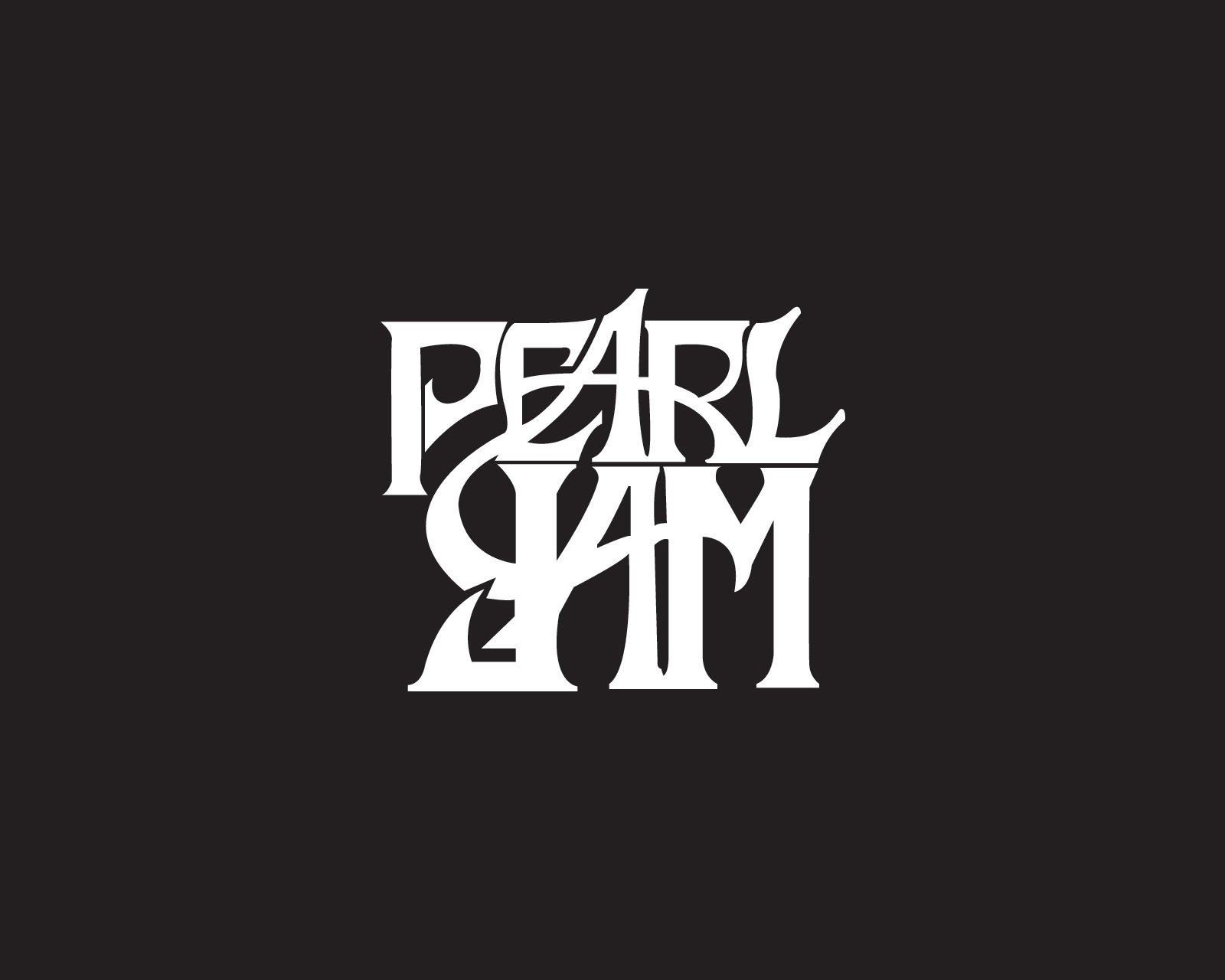
Pearl Jam Font
Pearl Jam Font - One of the fonts was the 2005 na/sa. Download the free font replicating the title logo from the album pearl jam 'ten' and many more at the original famous fonts! Collection of fonts for pearl jam. Pearl jam is an american rock band that formed in seattle, washington, in 1990. A few years back there was a french pearl jam site that had various fonts that pj had used over the years. The above is the first pearl jam logo as seen on their 1991 debut.
One of the fonts was the 2005 na/sa. Collection of fonts for pearl jam. Pearl jam is an american rock band that formed in seattle, washington, in 1990. The above is the first pearl jam logo as seen on their 1991 debut. Download the free font replicating the title logo from the album pearl jam 'ten' and many more at the original famous fonts! A few years back there was a french pearl jam site that had various fonts that pj had used over the years.
Download the free font replicating the title logo from the album pearl jam 'ten' and many more at the original famous fonts! The above is the first pearl jam logo as seen on their 1991 debut. Collection of fonts for pearl jam. A few years back there was a french pearl jam site that had various fonts that pj had used over the years. Pearl jam is an american rock band that formed in seattle, washington, in 1990. One of the fonts was the 2005 na/sa.